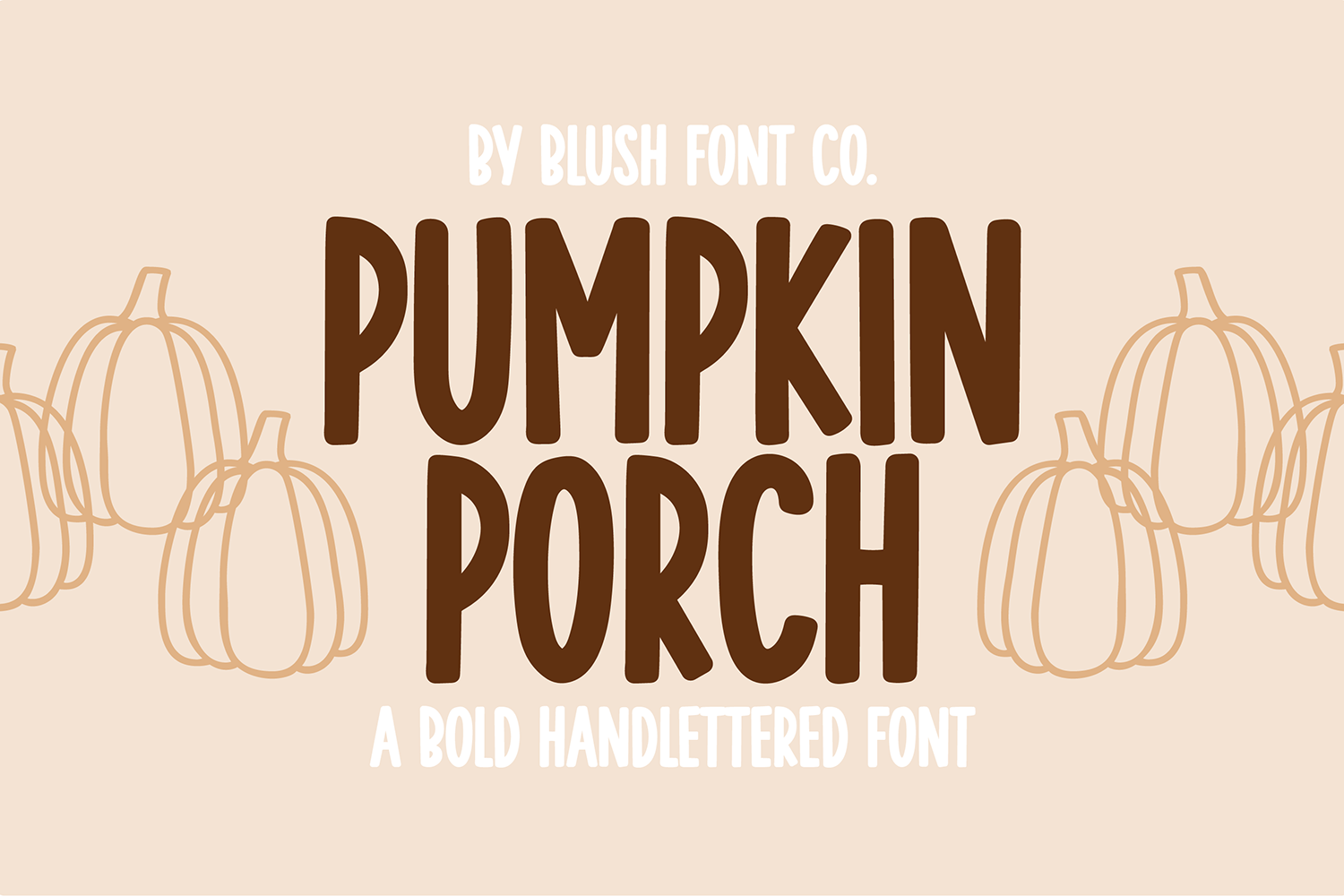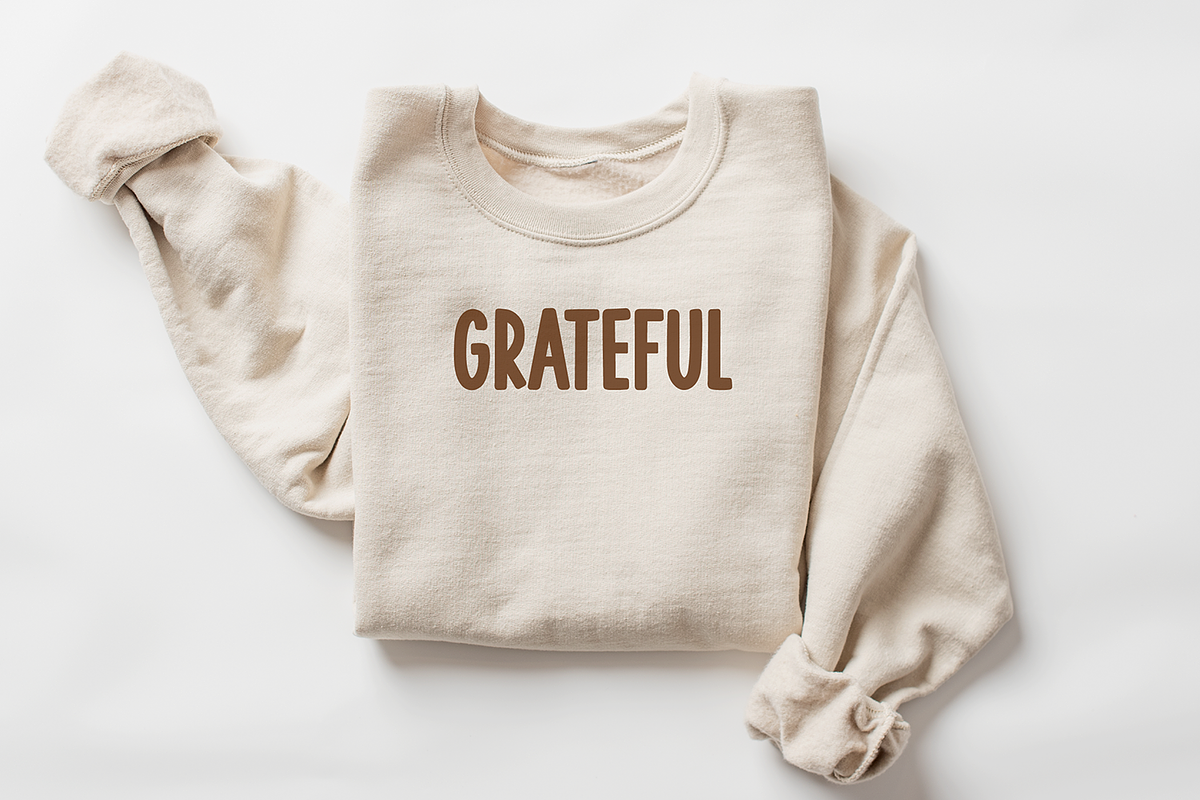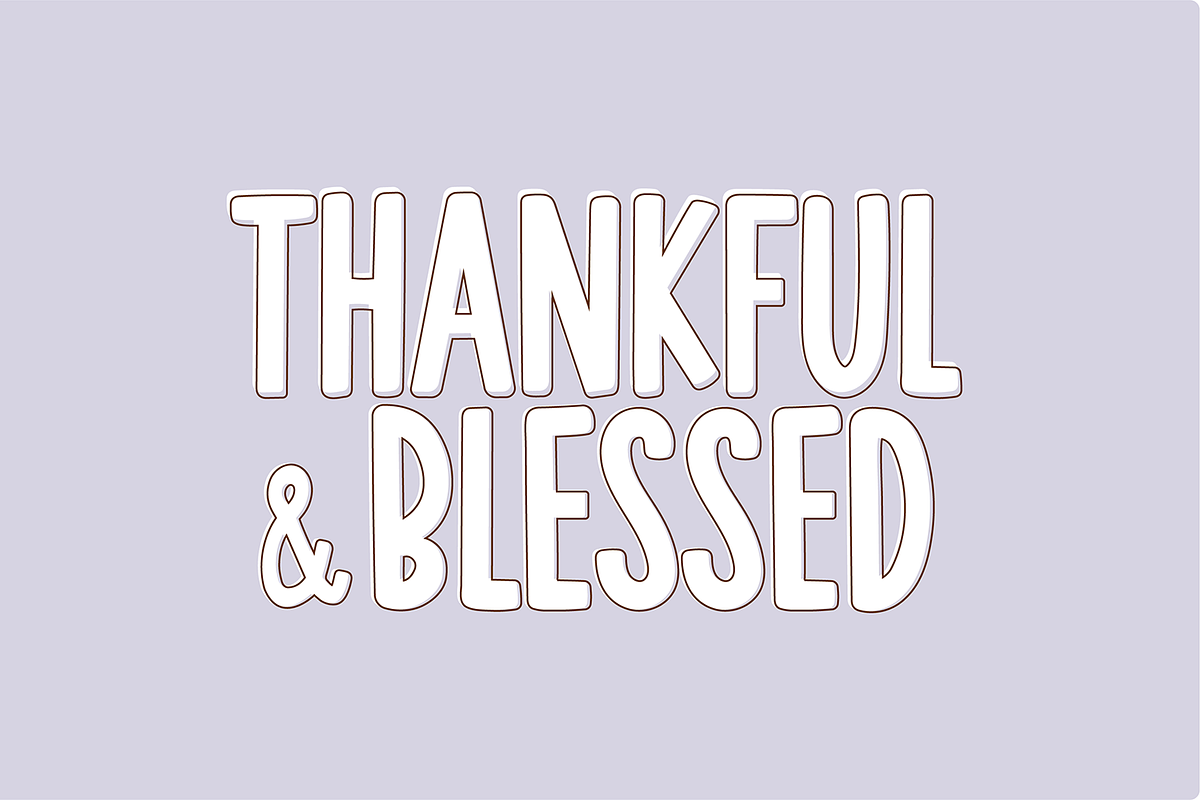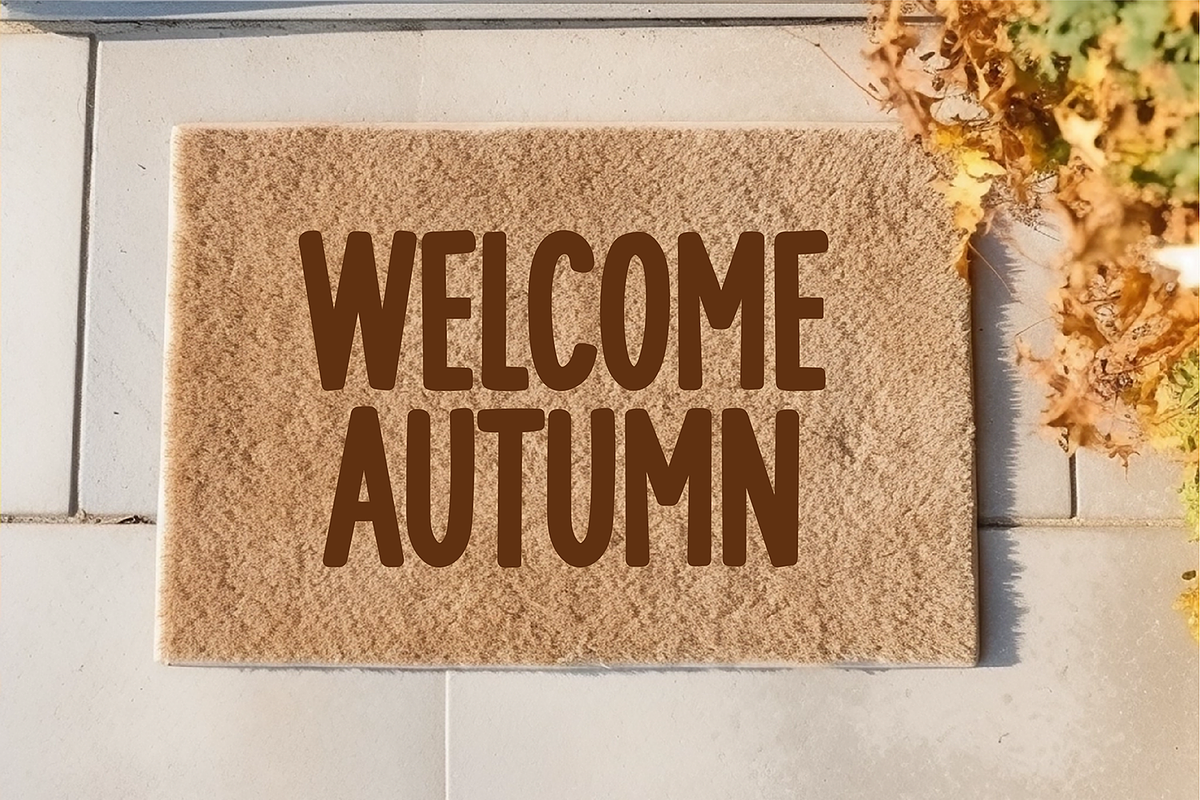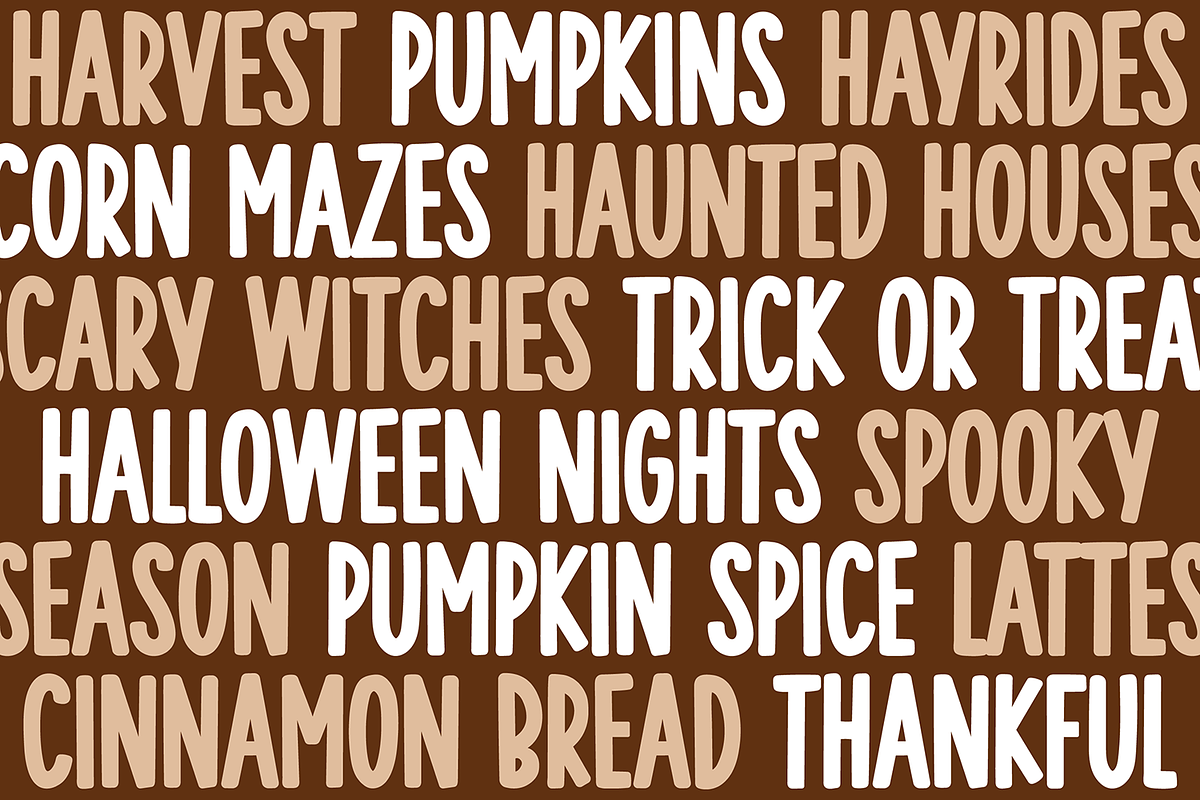
PUMPKIN PORCH Bold Tall Title Font
"Pumpkin Porch" a chunky and simple hand-lettered font.
This font is a simple display font that is perfect for social media or crafty projects. Use if for branding, crafts for decor, invitations, and more!